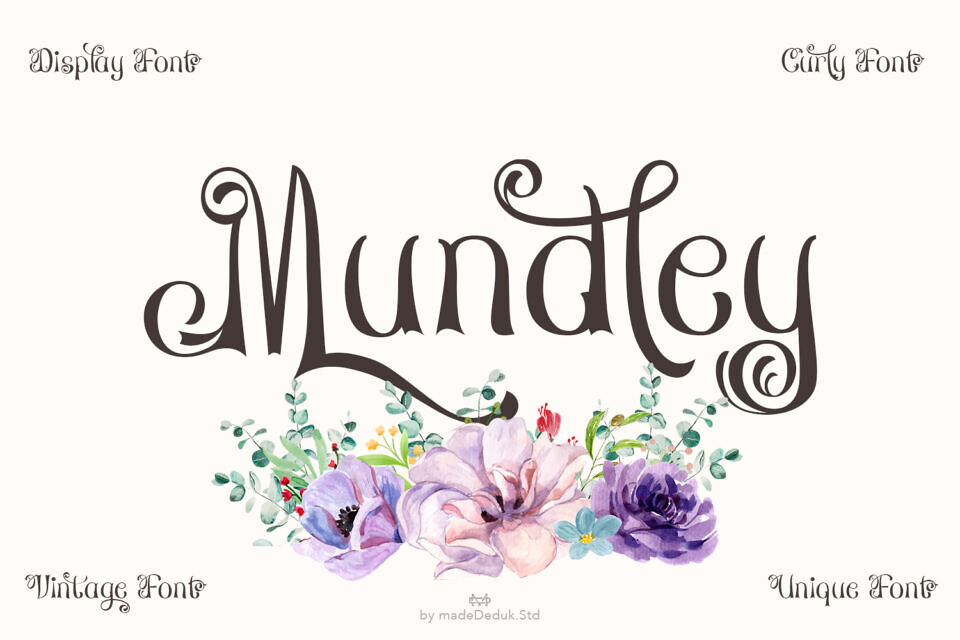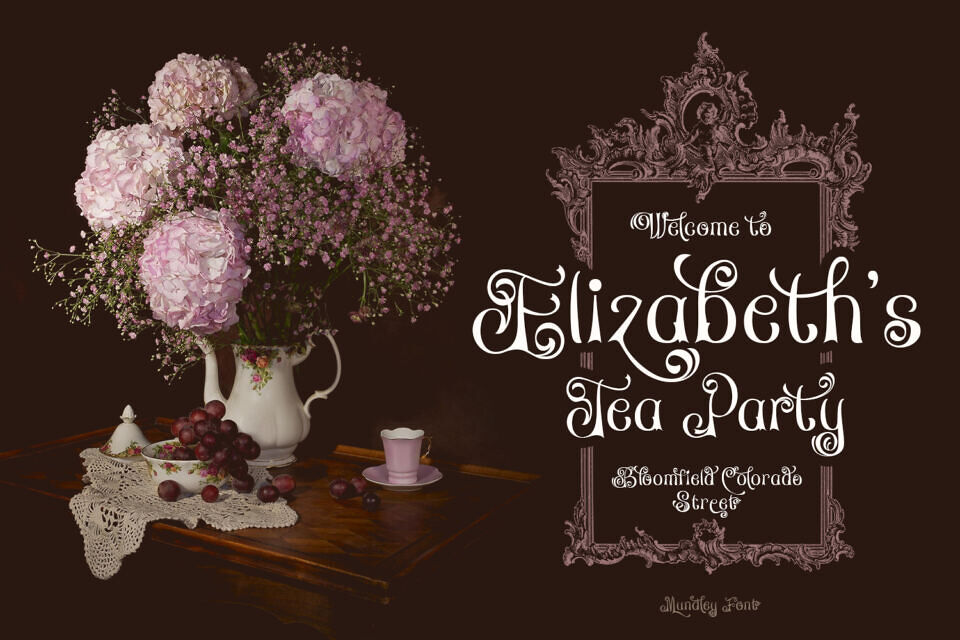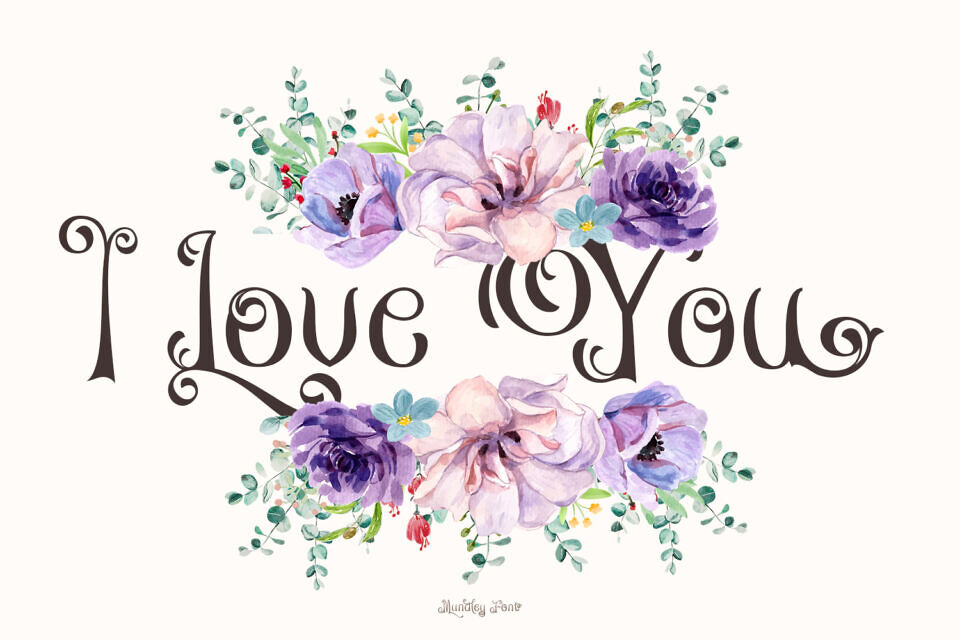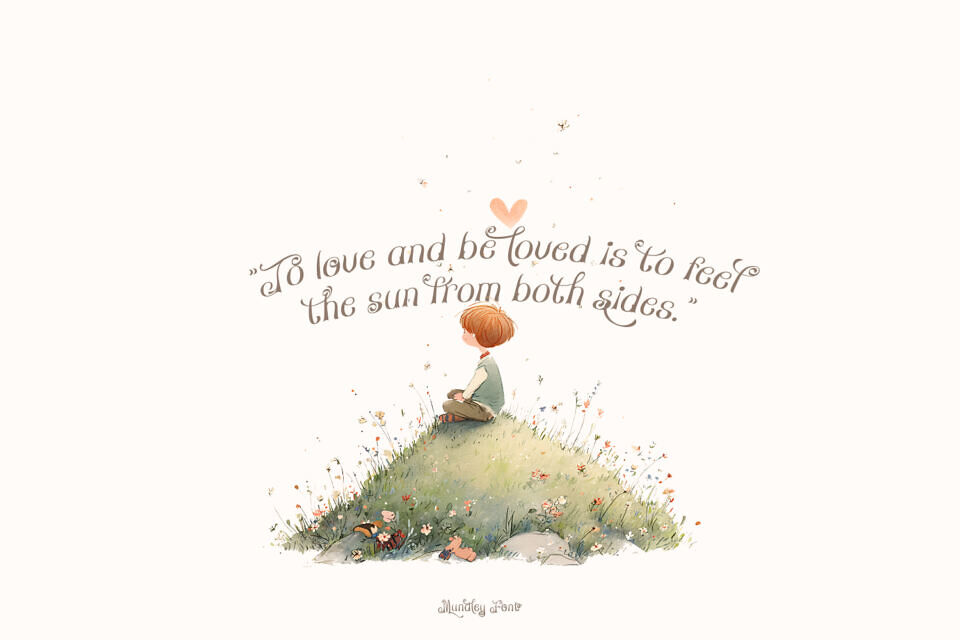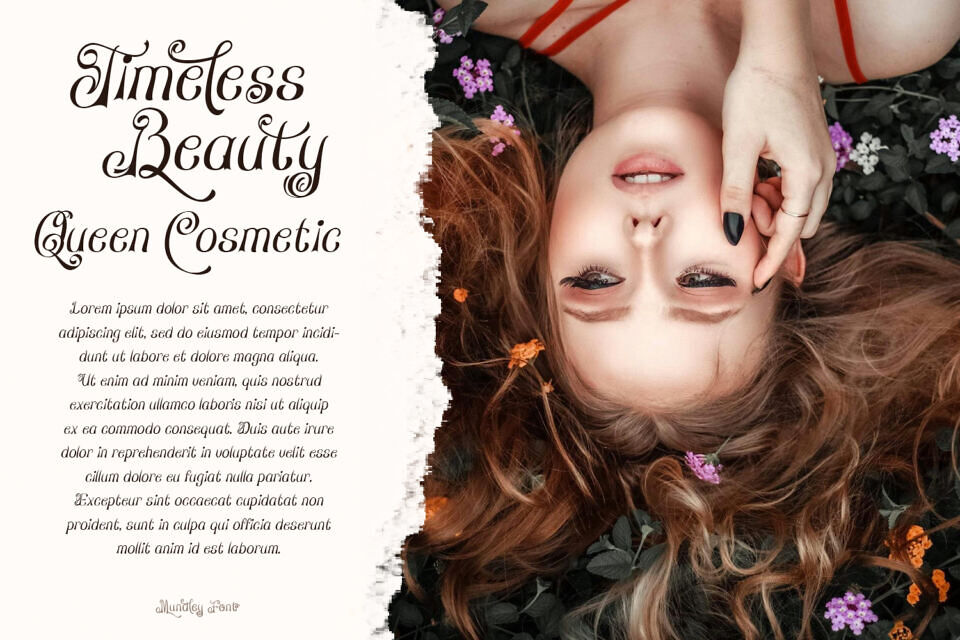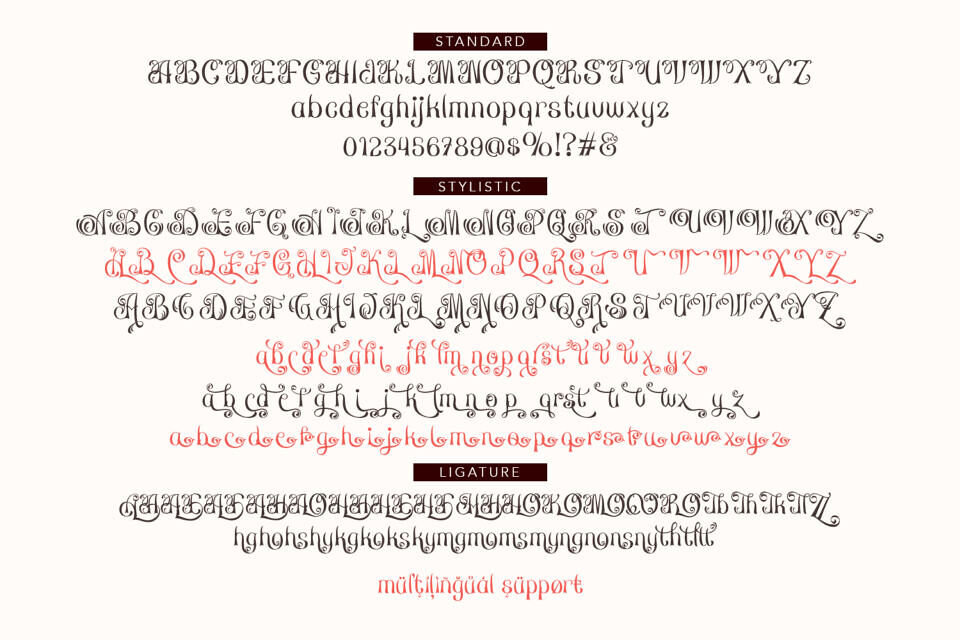
Mundley Font
The heart script font Moranbillye was inspired by traditional calligraphy. This lovely script font is crafted with thin, consistent strokes that exude luxury and sophistication while evoking a romantic feeling. It is simple to read but full of personality, making it ideal for any project that calls for a classic look with a contemporary twist.
Whether you’re making digital content or printed materials, it’s ideal for branding, logotypes, quotes, labels, social media posts, ads, product packaging, logo designs, posters, photography, events, and stationery.